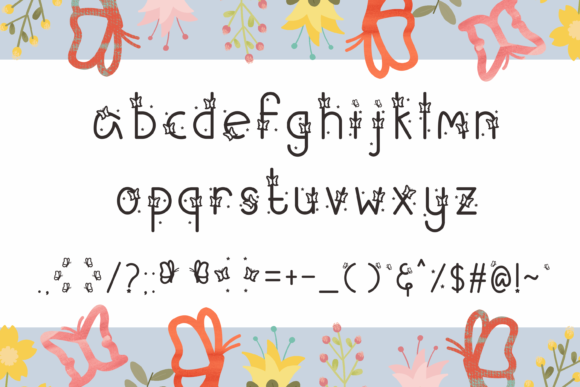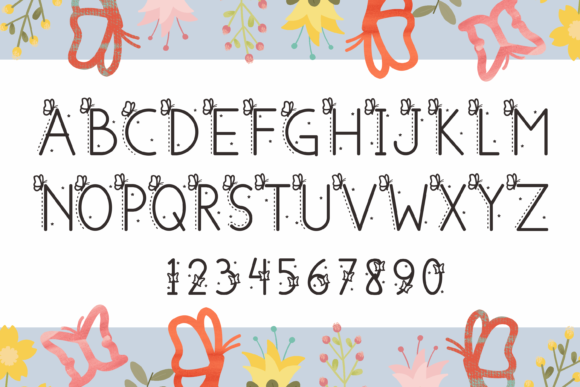
Transform Your Designs with the Magic of Betterflies Font
Have you ever stumbled upon a font that makes you feel like a kid in a candy store? That’s exactly what happened to me when I discovered the Betterflies Font. I was working on a project, trying to come up with the perfect title, and suddenly, a font with adorable butterfly characters caught my eye. I couldn’t resist the urge to use it, and it completely transformed the entire design.
Betterflies Font is a delightful decorative font that brings a touch of whimsy and joy to any project. Whether you’re creating a letterhead, title, or stationery, this font is sure to elevate your designs to new heights. Its unique butterfly characters make it a valuable asset for designers who want to add a playful twist to their work.
- Unique Characteristics: Betterflies Font features a unique blend of modern and vintage elements, with intricate details and ornate flourishes, making it ideal for artistic and creative projects.
Betterflies Font Review
Overall, I’m quite impressed with the Betterflies font. Here’s what I like:
- ✨ Unique style: The font has a whimsical and playful feel that’s perfect for creative projects.
- ✨ High-quality rendering: The font looks crisp and clear, even at smaller sizes.
- ✨ Versatile: It works well for both digital and print projects, making it a great addition to any designer’s toolkit.
- ⚠️ Limited font weight options: The font only comes in a few weights, which may limit its usability in certain situations.
- ⚠️ Not suitable for body text: Due to its playful style, the font may not be the best choice for large blocks of text.
- ⚠️ Limited language support: The font may not support all languages, which could be a problem for international projects.
Overall, I think Betterflies is a great addition to any designer’s font library. Its unique style and high-quality rendering make it a great choice for creative projects. Just be aware of its limitations and use it judiciously.
Getting the Most Out of Betterflies Font
For the best results, use the Betterflies font in conjunction with bold and italic styles to create a visually appealing design.
Experiment with different font sizes and colors to find the perfect balance for your project.
The Betterflies font is ideal for:
1. Children’s book illustrations.
2. Wedding invitations.
3. Social media graphics.
4. Brand logos and identity design.
Alternatives to Betterflies Font for Designers
Great Vibes is a beautiful, elegant script font that works well for invitations, weddings, and other formal events. It has a similar flowing feel to Betterflies Font but with a more refined and sophisticated look.
When to use: Formal events, invitations, weddings, and any occasion where a touch of elegance is required.
Comparison: Great Vibes Font has a more refined look and is better suited for formal events, while Betterflies Font has a more playful and whimsical feel.
Carolyna Pro is a modern, elegant script font that is perfect for branding, logos, and packaging. It has a similar flowing feel to Betterflies Font but with a more contemporary and stylish look.
When to use: Branding, logos, packaging, and any occasion where a modern and stylish look is required.
Comparison: Carolyna Pro Font has a more modern and contemporary look, while Betterflies Font has a more vintage and whimsical feel.
Alex Brush is a beautiful, elegant script font that is perfect for invitations, weddings, and other formal events. It has a similar flowing feel to Betterflies Font but with a more refined and sophisticated look.